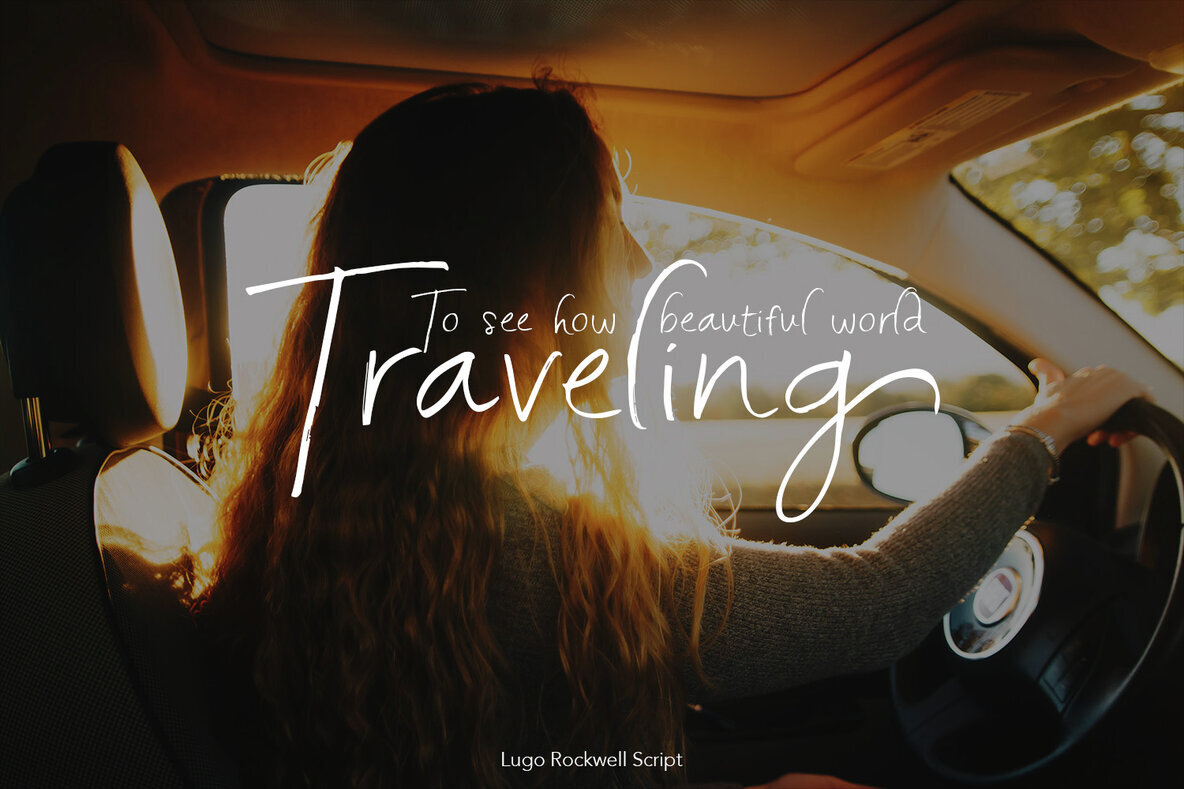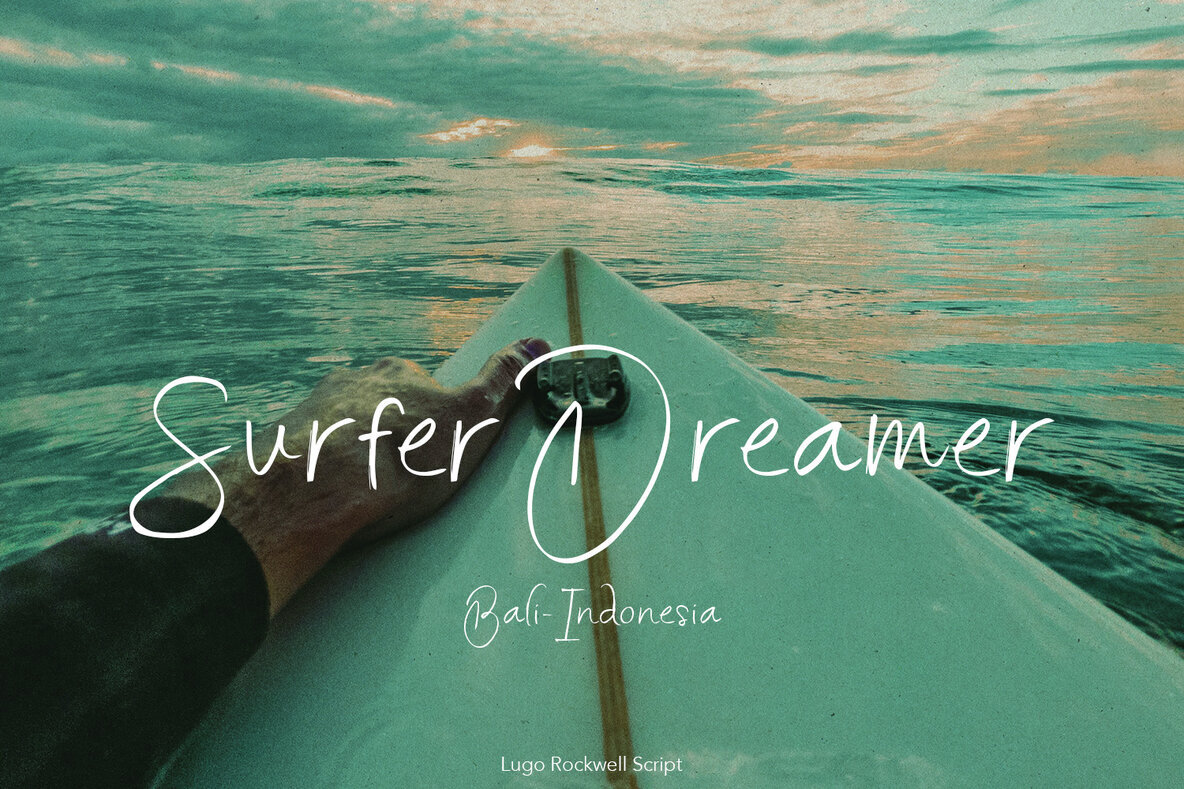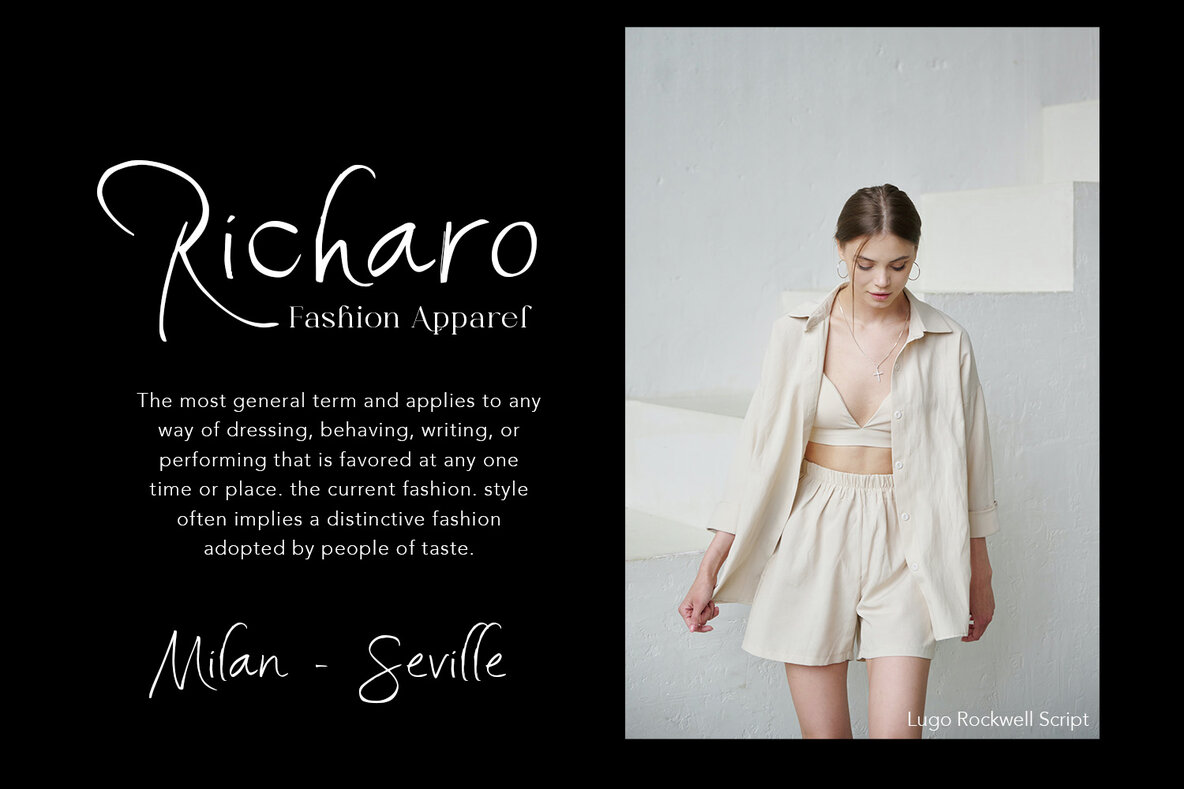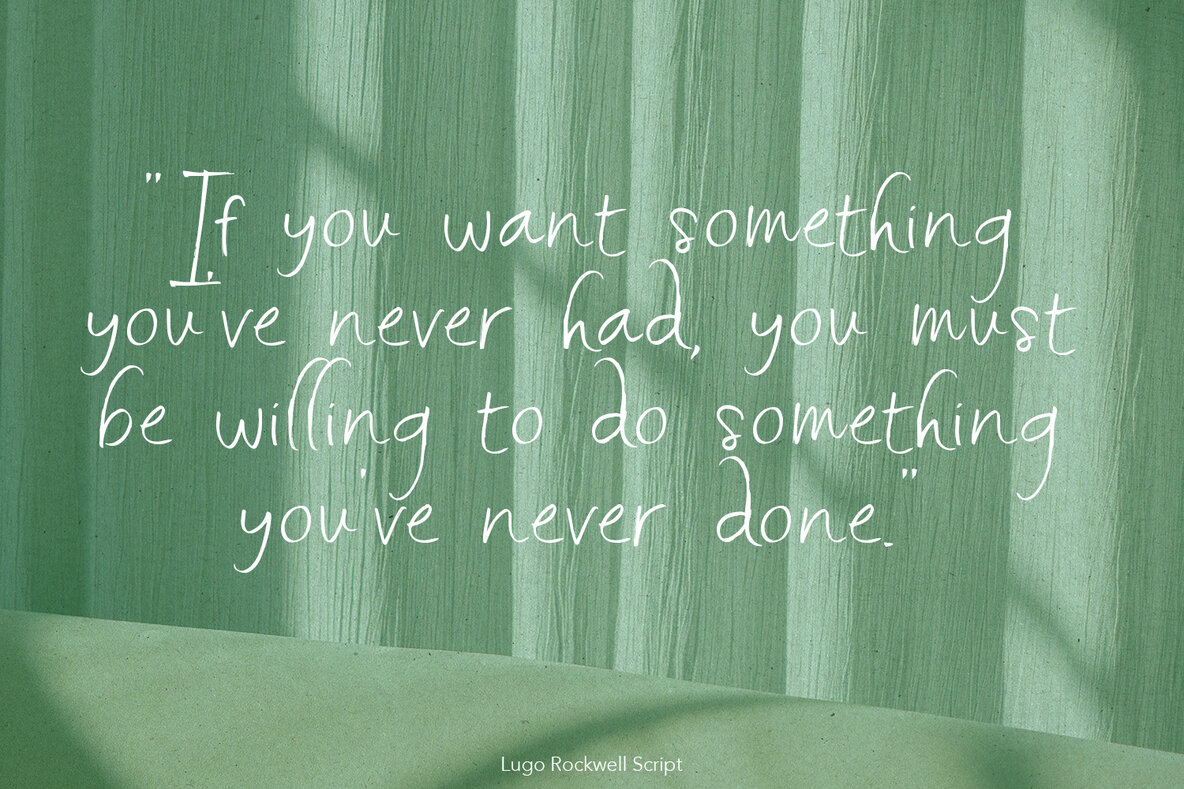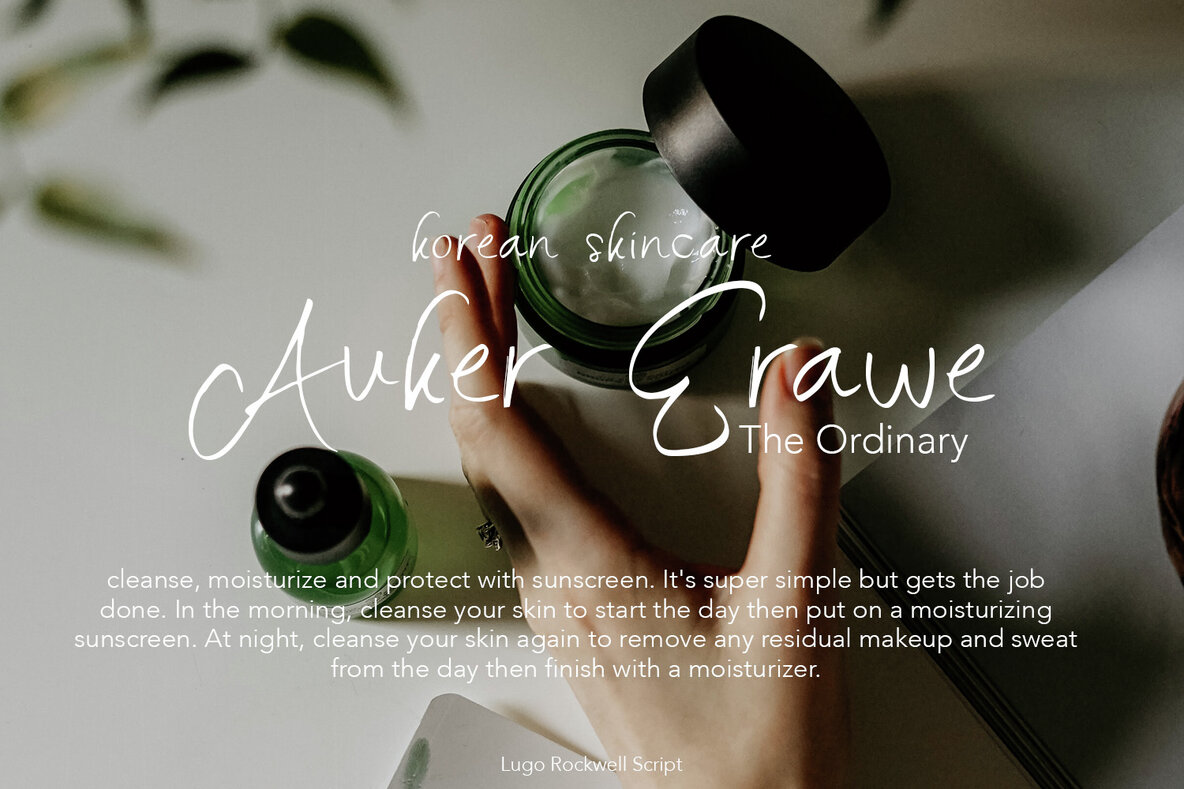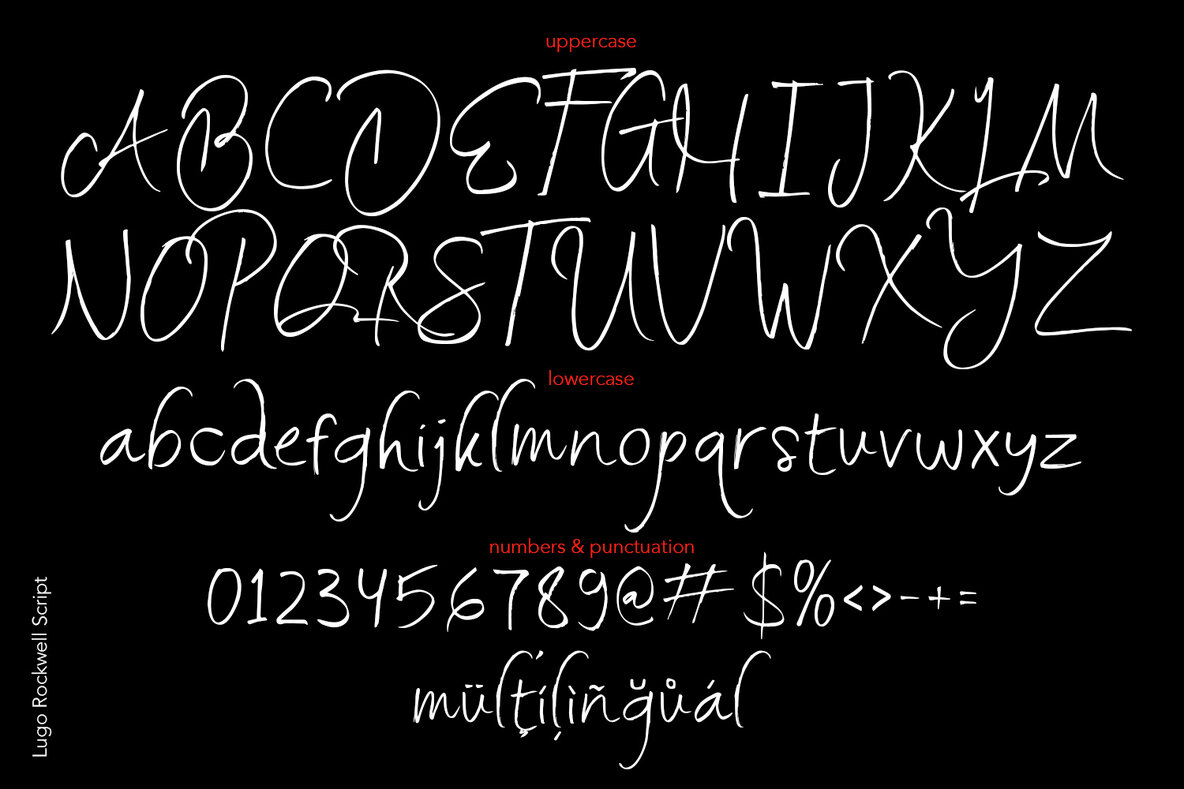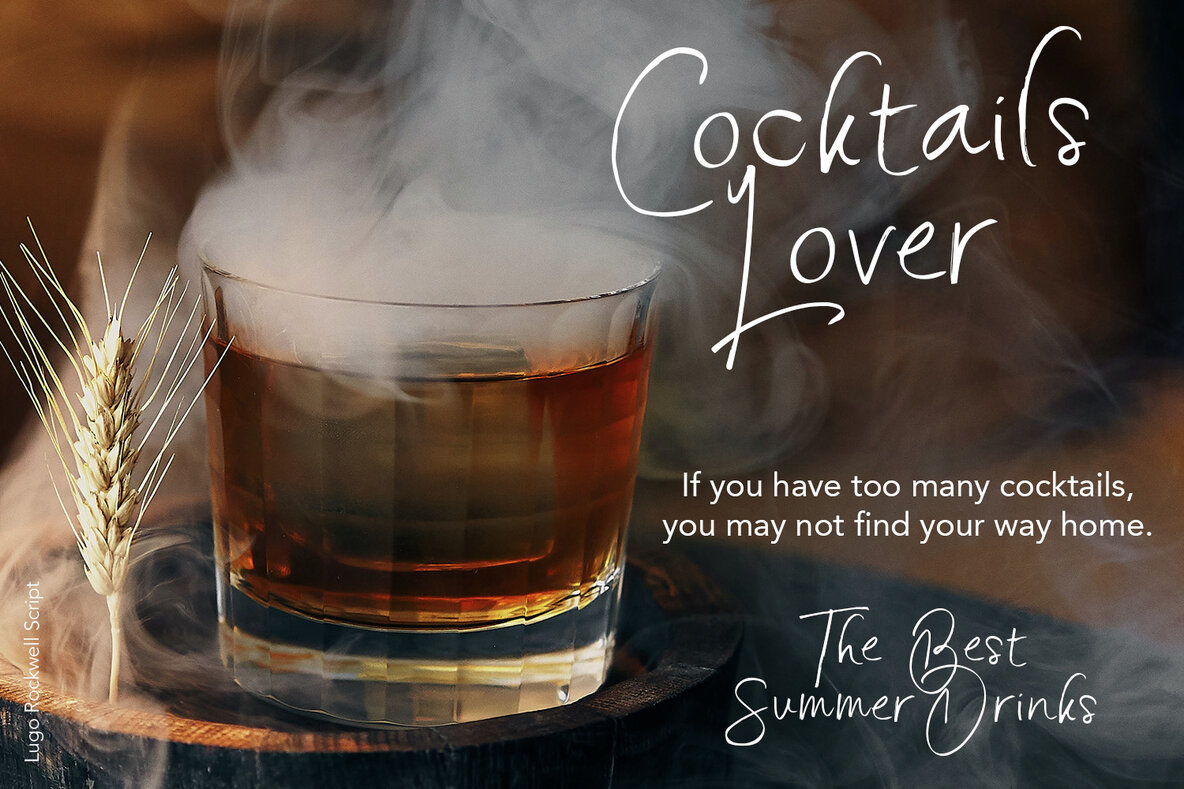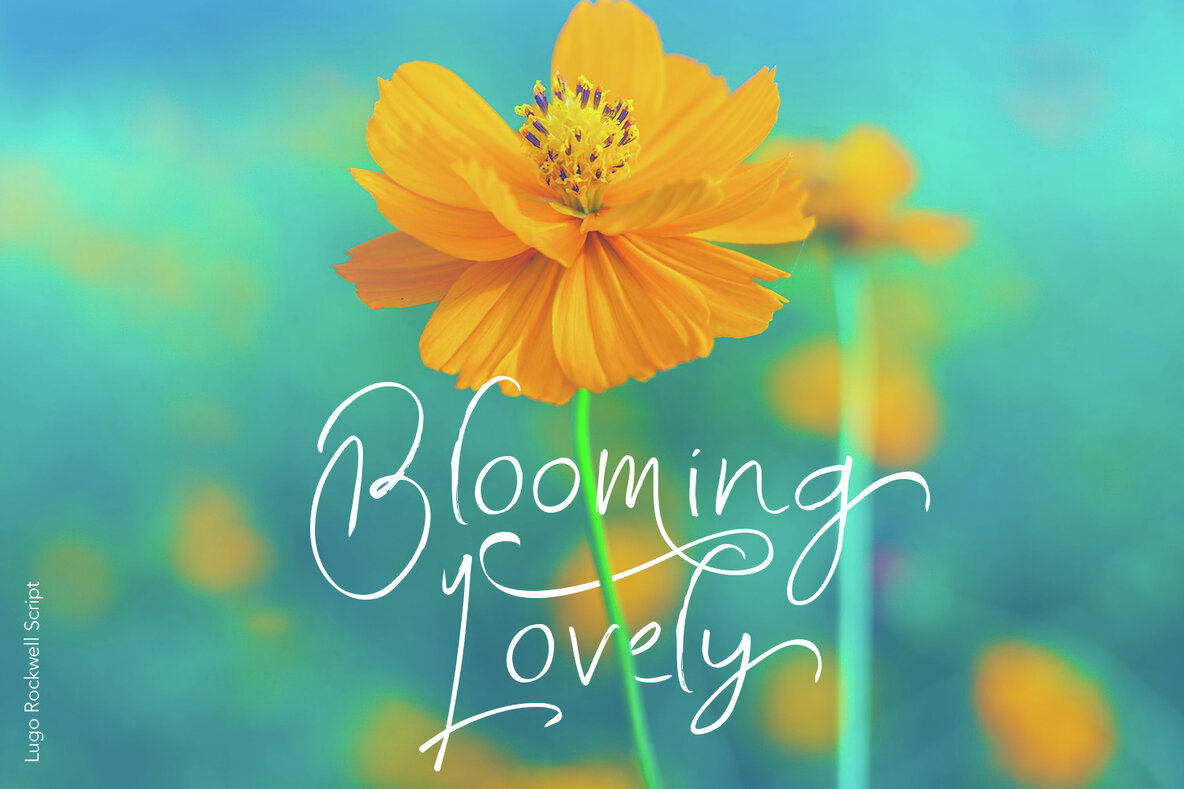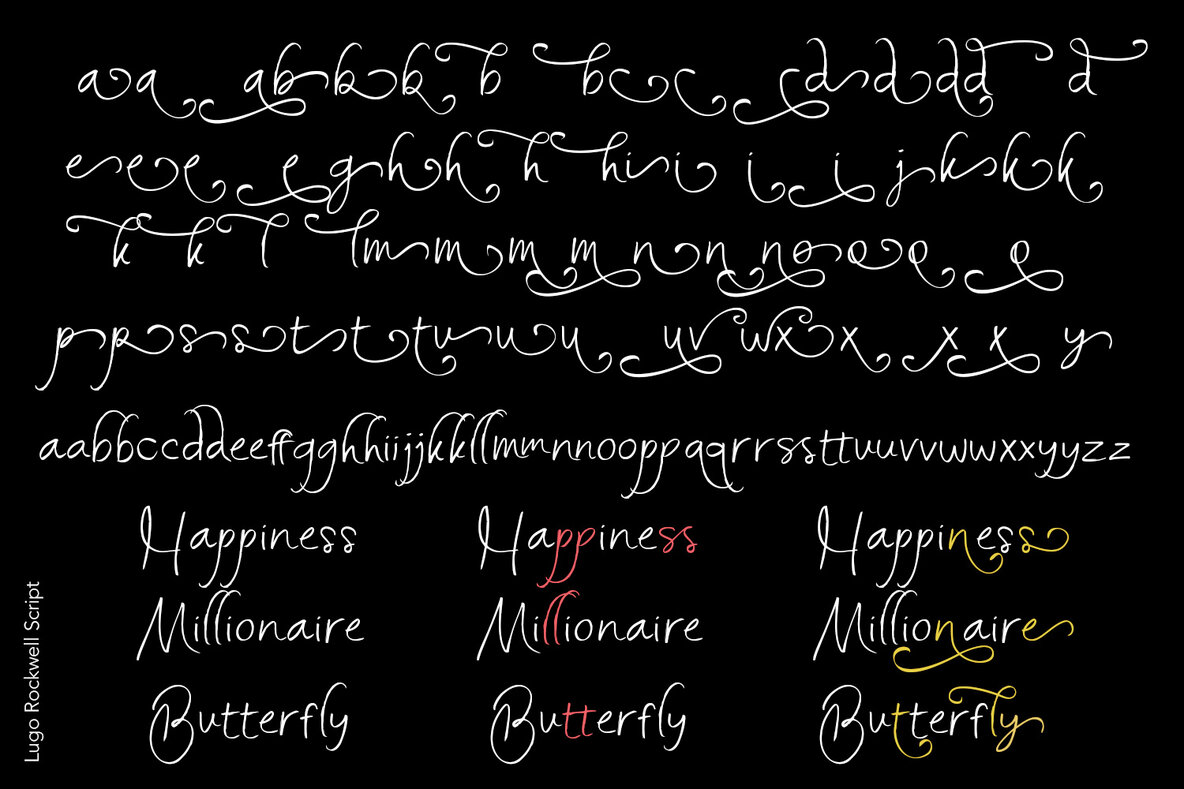
Lugo Rockwell Font
Lugo Rockwell is a brush-style vintage handwritten font designed to make a strong impression on your design projects. Its unique character and numerous ligatures provide a realistic, handcrafted look.Lugo Rockwell: Brush Vintage Handwritten Font